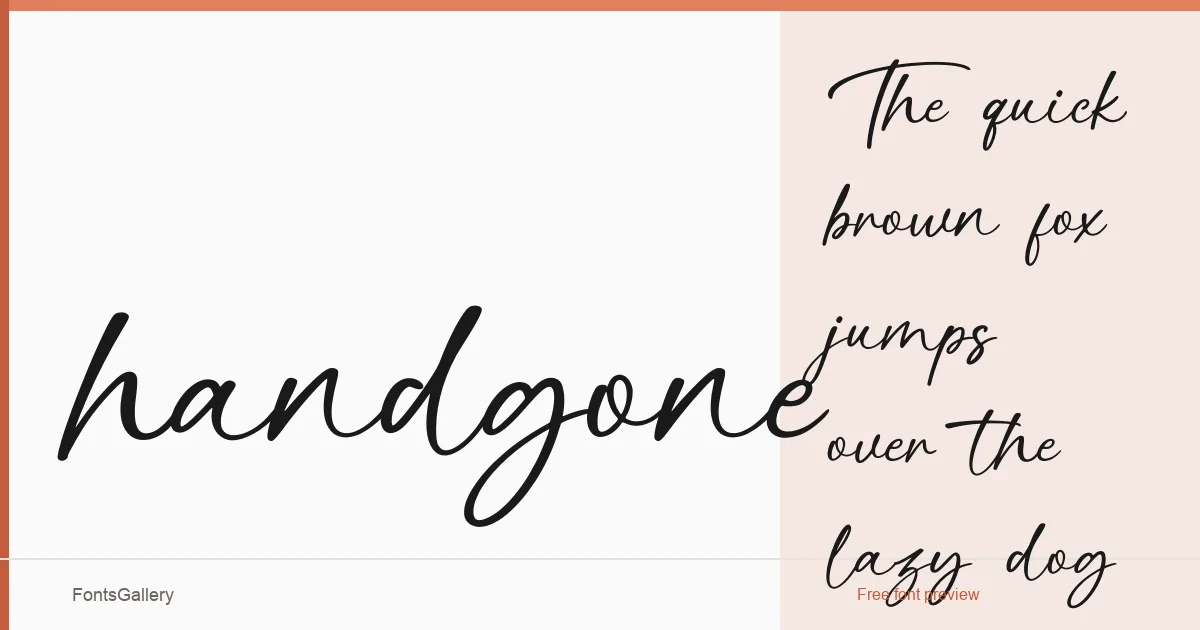
About handgone Font
handgone is a script typeface crafted by Bery Arisandi and Basnistudio, brought to you by the Basnistudio foundry. It blends elegant, whimsical, and romantic qualities into a fluid, expressive design that feels both refined and full of personality. This font is ideally suited for projects that call for a touch of charm and sophistication.
As a script font, handgone features flowing, connected letterforms that evoke the grace and intimacy of handwritten calligraphy. Its romantic and whimsical character is reflected in its organic curves and delicate strokes, lending each character a sense of natural elegance. The overall aesthetic strikes a balance between playful spontaneity and polished refinement.
handgone shines in logo design, wedding stationery, invitation cards, branding projects, and greeting cards where an elegant, heartfelt tone is desired. Its expressive script style makes it a natural choice for any occasion that calls for a personal, romantic touch. For a compelling typographic contrast, consider pairing handgone with Aresink for a complementary script feel, or with Helvetica for a clean, modern counterbalance.